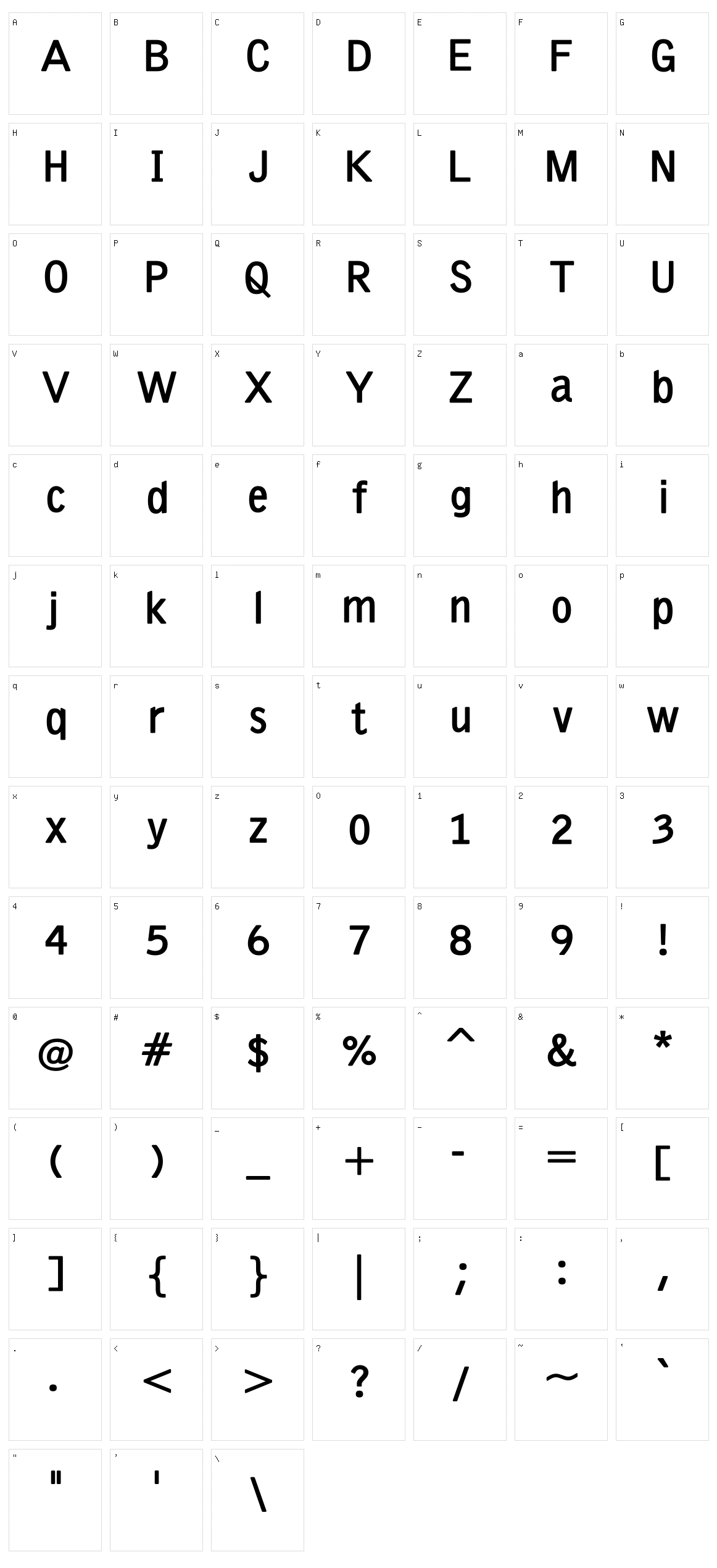
The free font Emka Sans Condensed is carefully designed by Manfred Klein, showcasing a thoughtful balance of creativity and usability and falls under the Sans serif font style. When you download the ZIP file, it contains only 63.38 KB of font files, making it lightweight and quick to download. Please review the license details below to understand permitted usage and distribution rights. If license information is not available, we recommend using this font for personal projects only or contacting the author directly for commercial usage permissions.